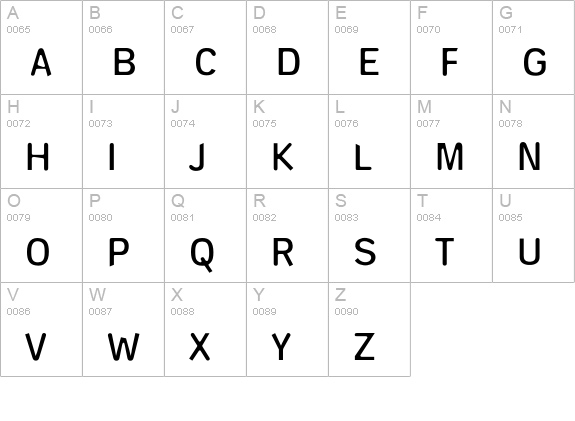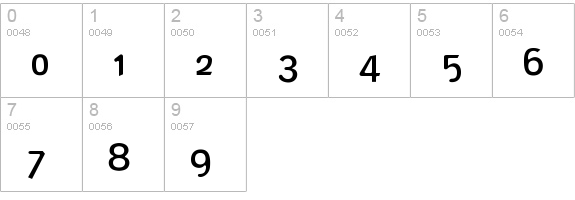
DeconStruct-Medium Font Details
DeconStruct-Medium is a balanced, medium-weight variant in the DeconStruct typeface family \xE2\x80\x94 well suited to sub-headlines, navigation, and balanced editorial work.
Introducing DeconStruct-Medium font - a versatile and modern typeface that is perfect for a wide range of design projects. With its clean lines and contemporary aesthetic, this font exudes sophistication and style. Whether you're designing a logo, poster, website, or any other creative project, DeconStruct-Medium font is sure to make a statement. Best of all, DeconStruct-Medium font is completely free to download at FontsMarket.com. This means you can easily access this high-quality font without breaking the bank. So why wait? Enhance your designs with the sleek and stylish DeconStruct-Medium font today!